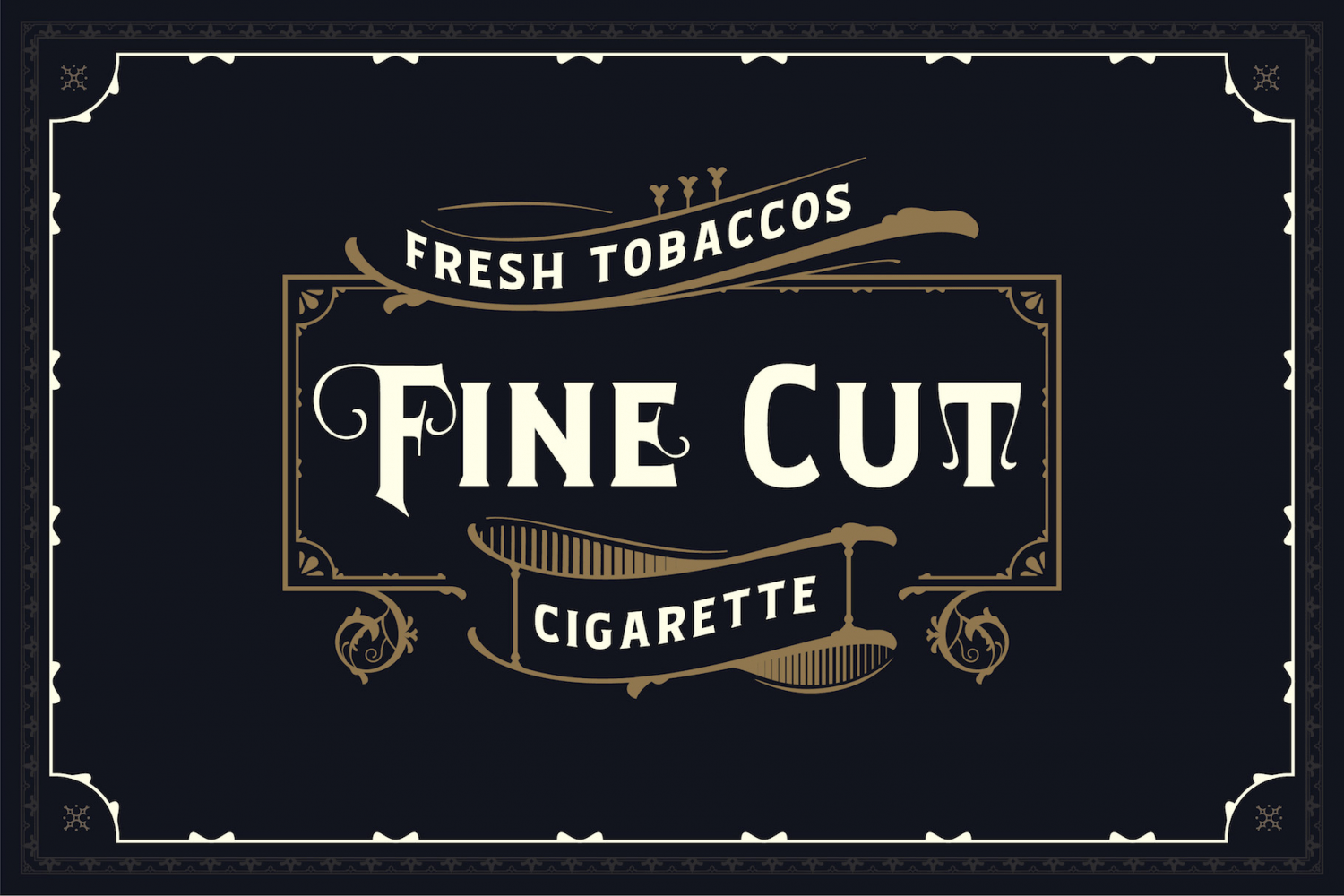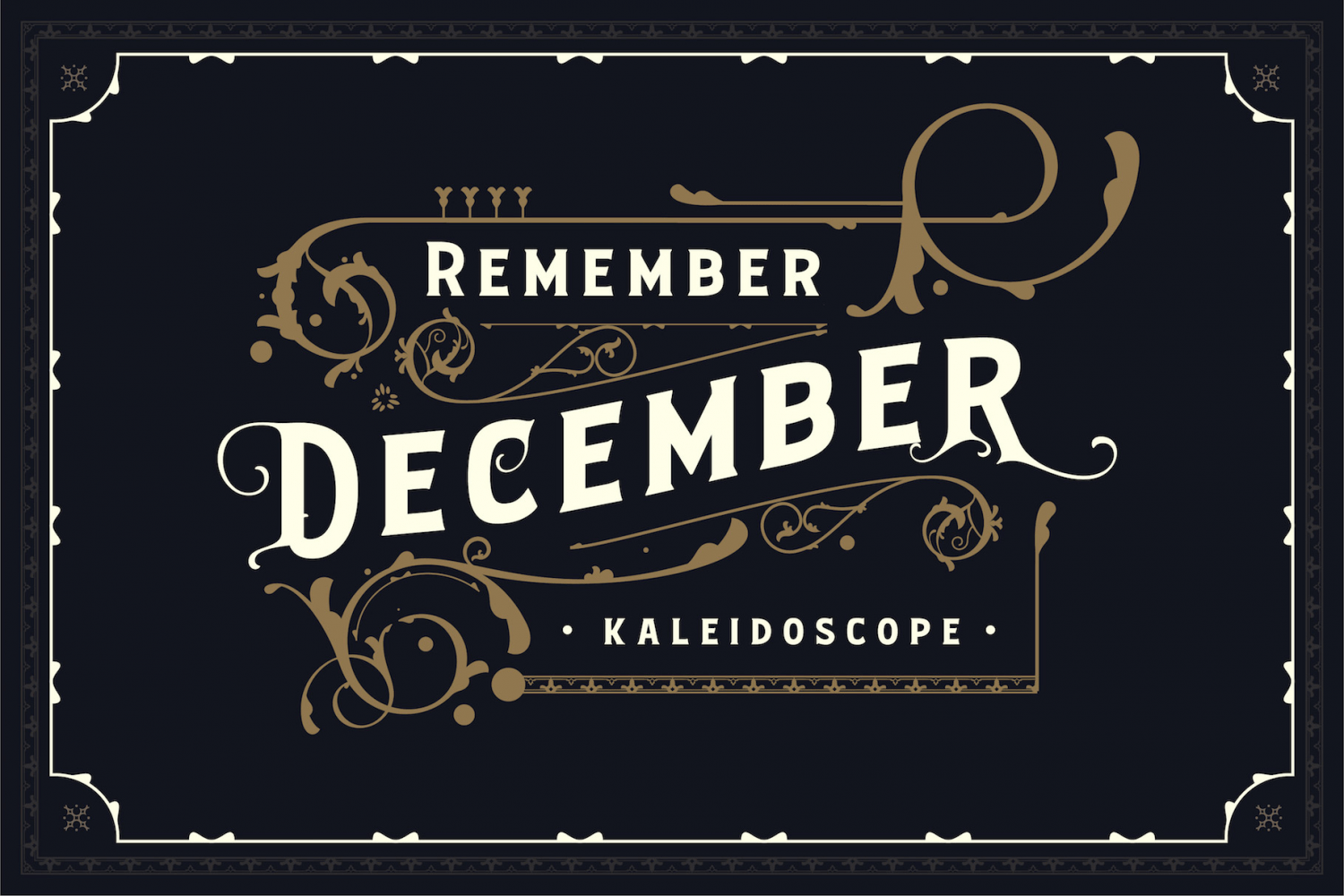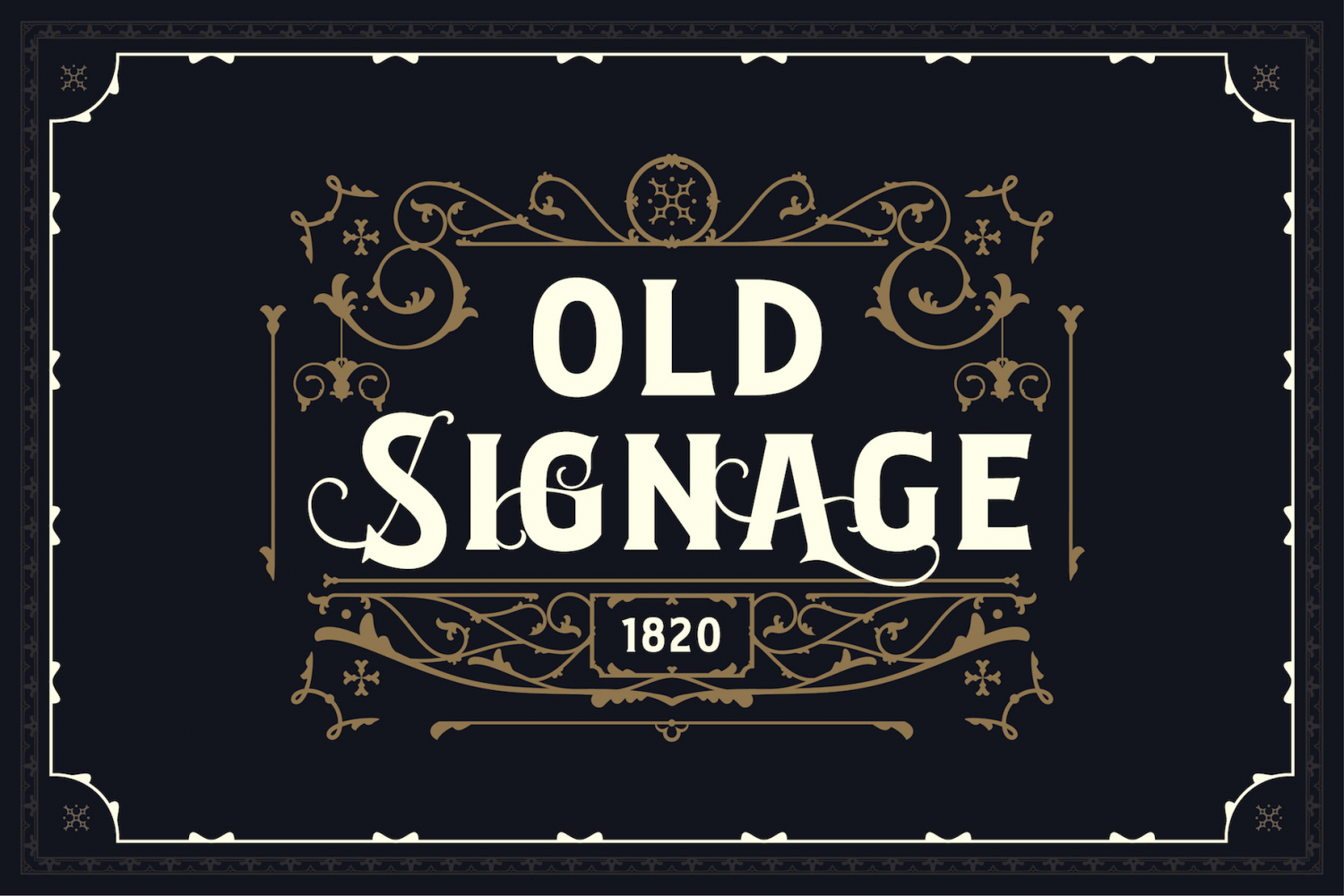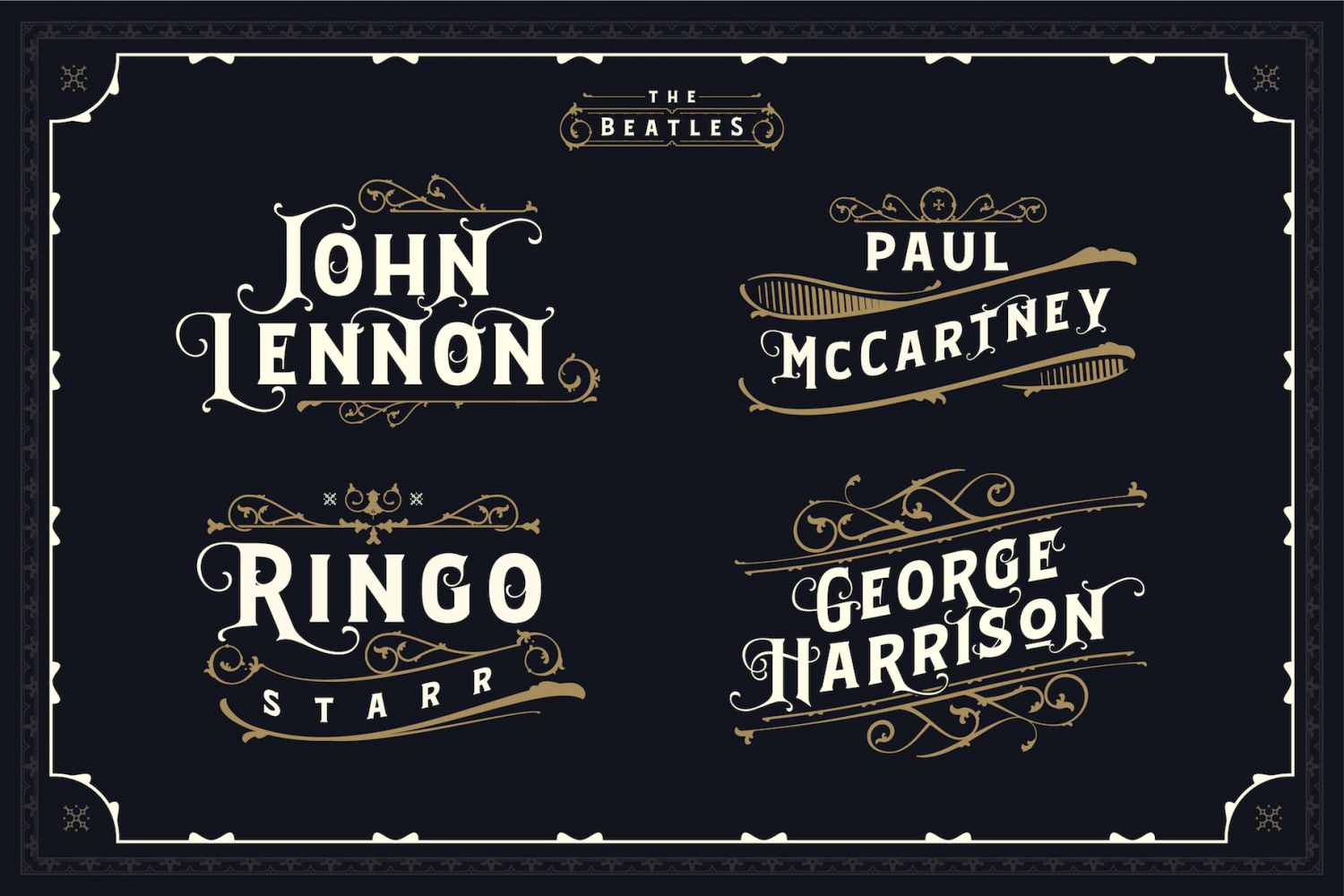
About Bignord
Bignord is a brand new fonts with vintage look and style inspired from many vintage packaging and from typographic cover lettering. Bignord is available up to 5 different stylistic on some letter so you can create the vintage feel from the swash of each…